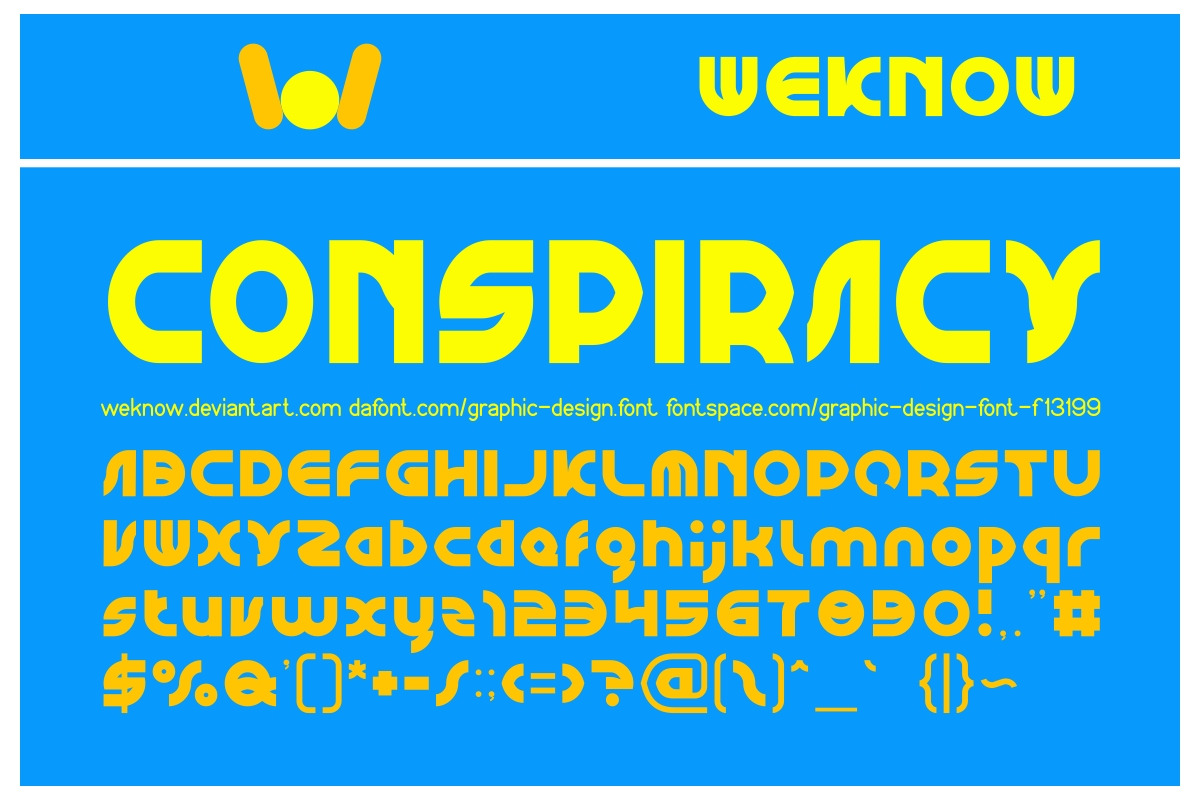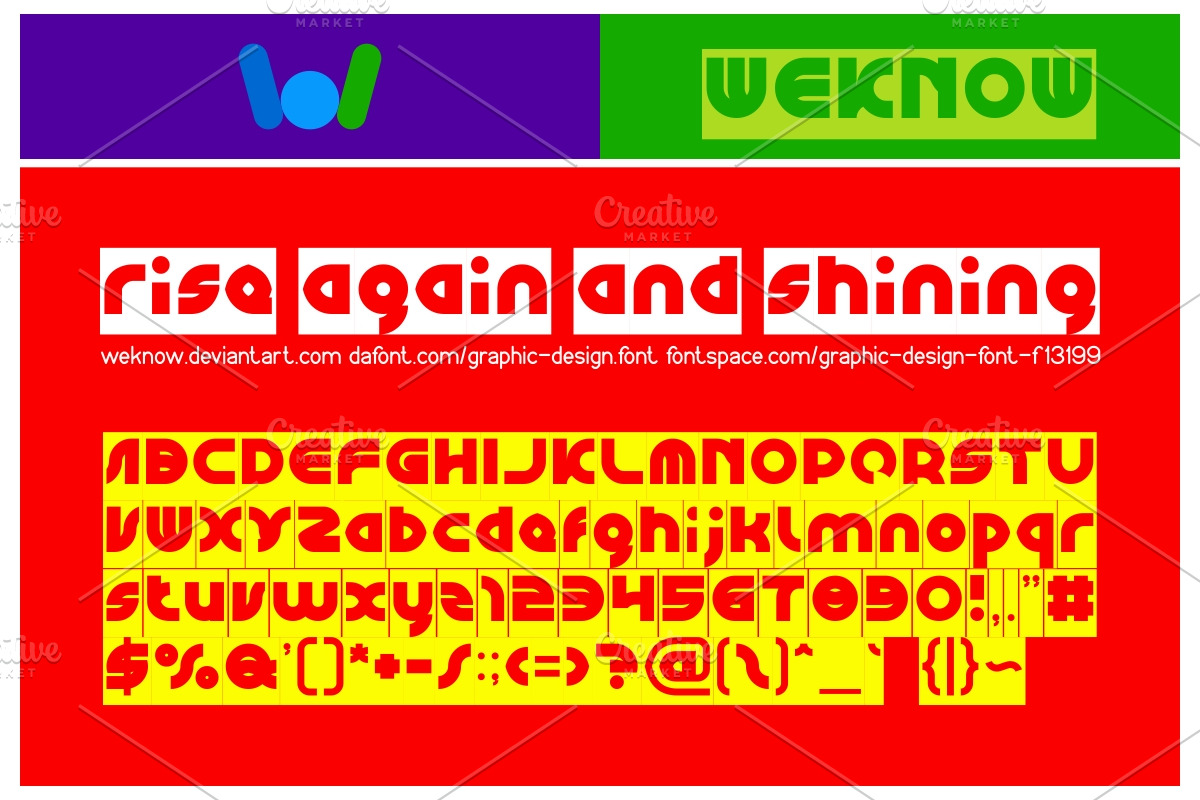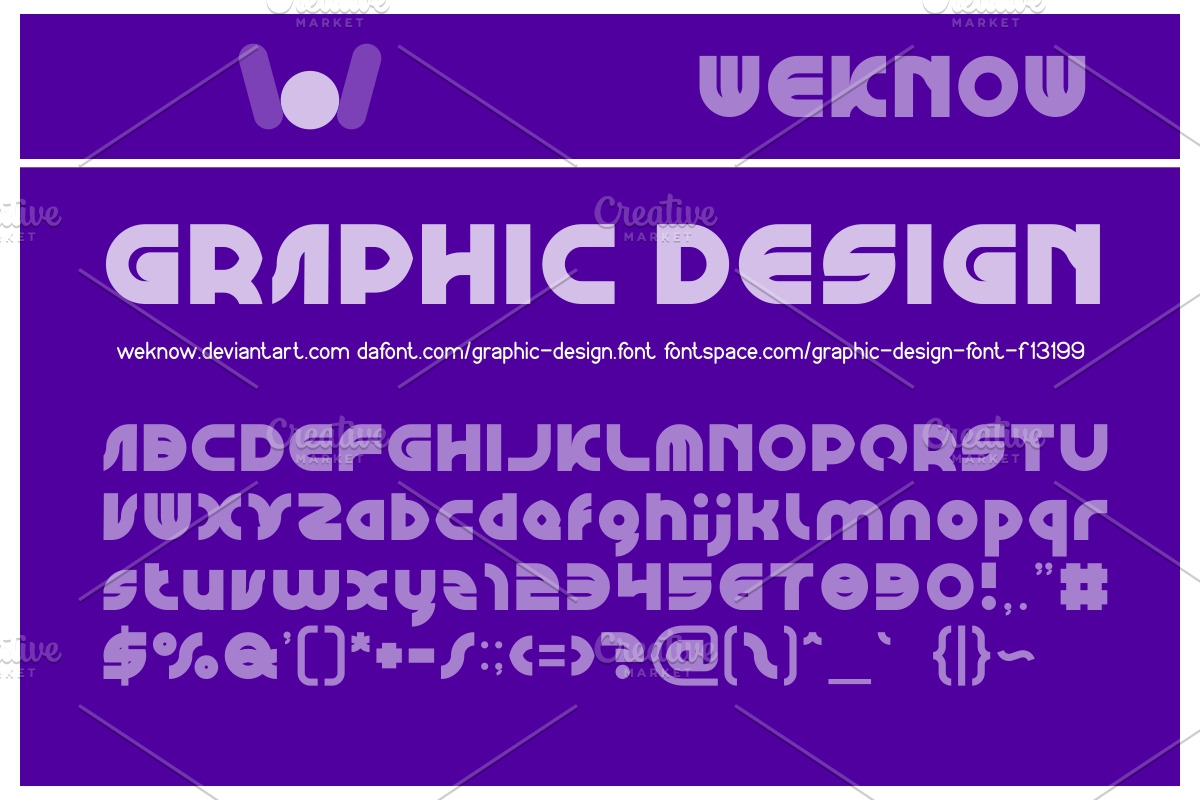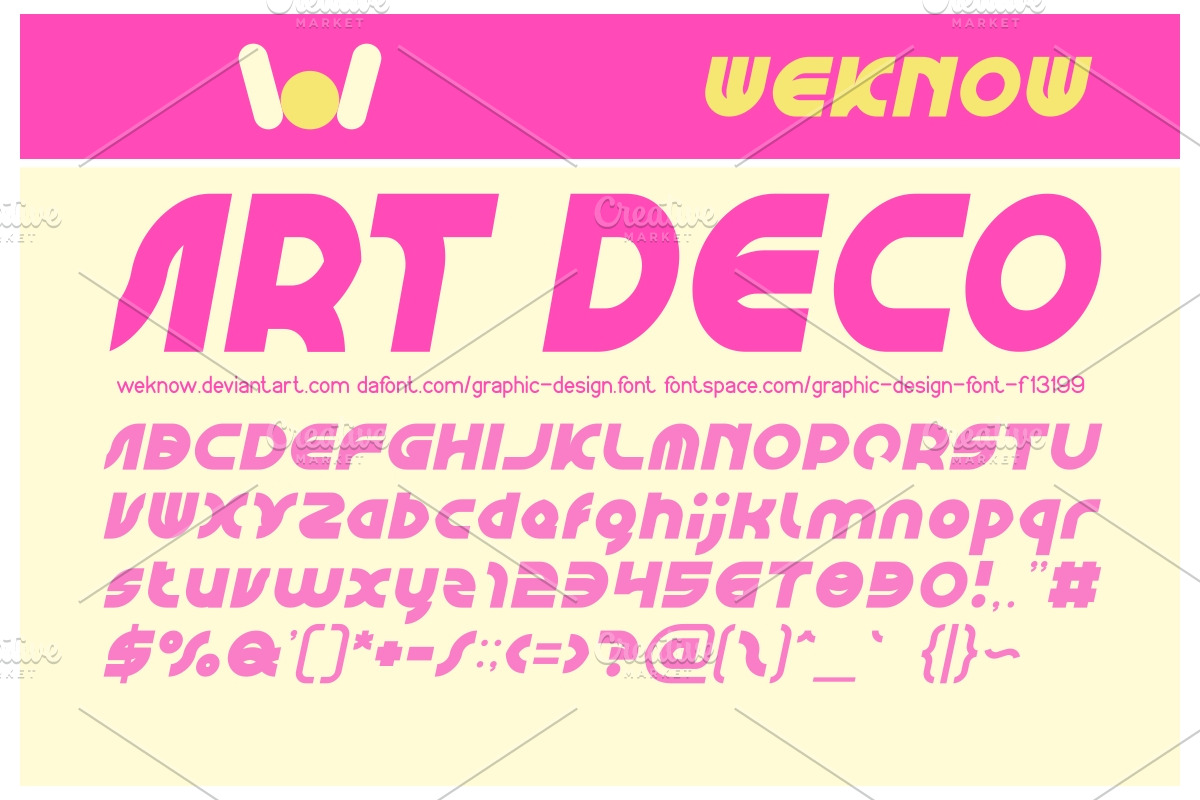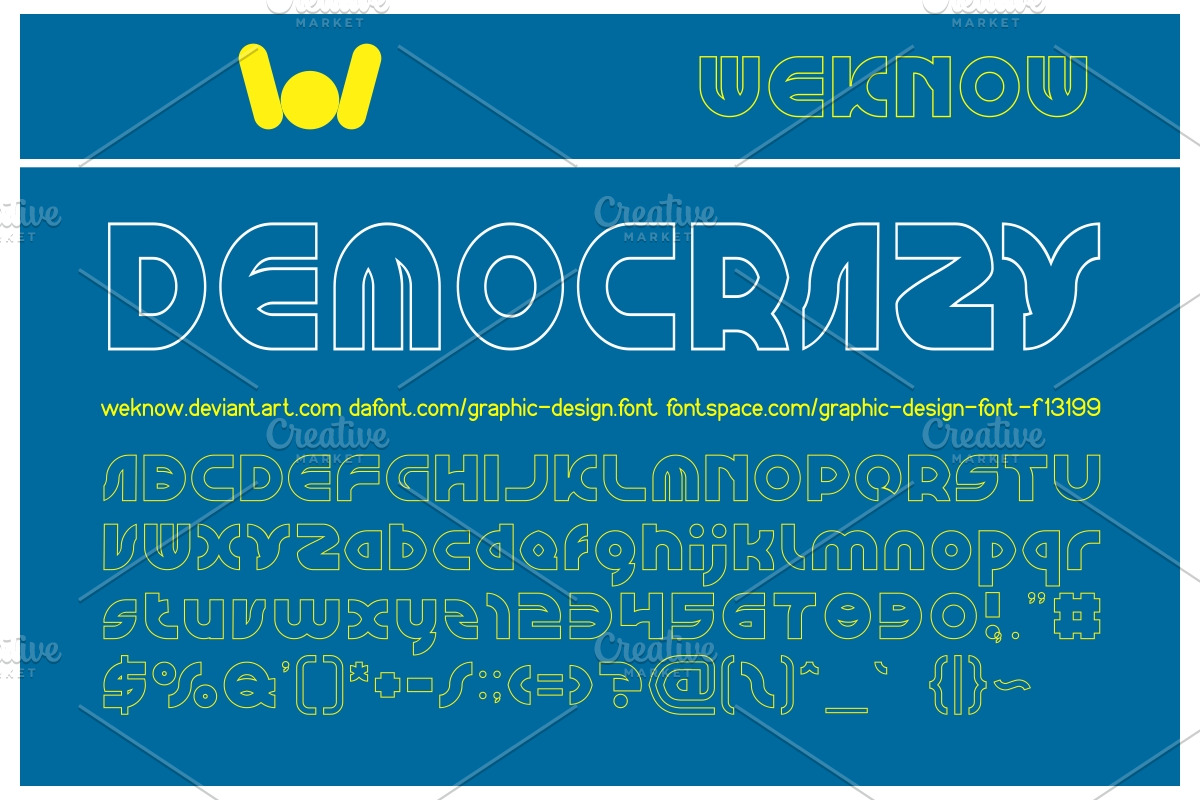
graphic design font
available style: GRAPHIC DESIGN-Light, GRAPHIC DESIGN-Bold, GRAPHIC DESIGN-Bold-Italic, GRAPHIC DESIGN-Hollow, GRAPHIC DESIGN-Hollow-Inverse, GRAPHIC DESIGN-Italic
Why graphic design font is worth a look
graphic design font by weknow fits naturally into Branding, posters, packaging, typography.